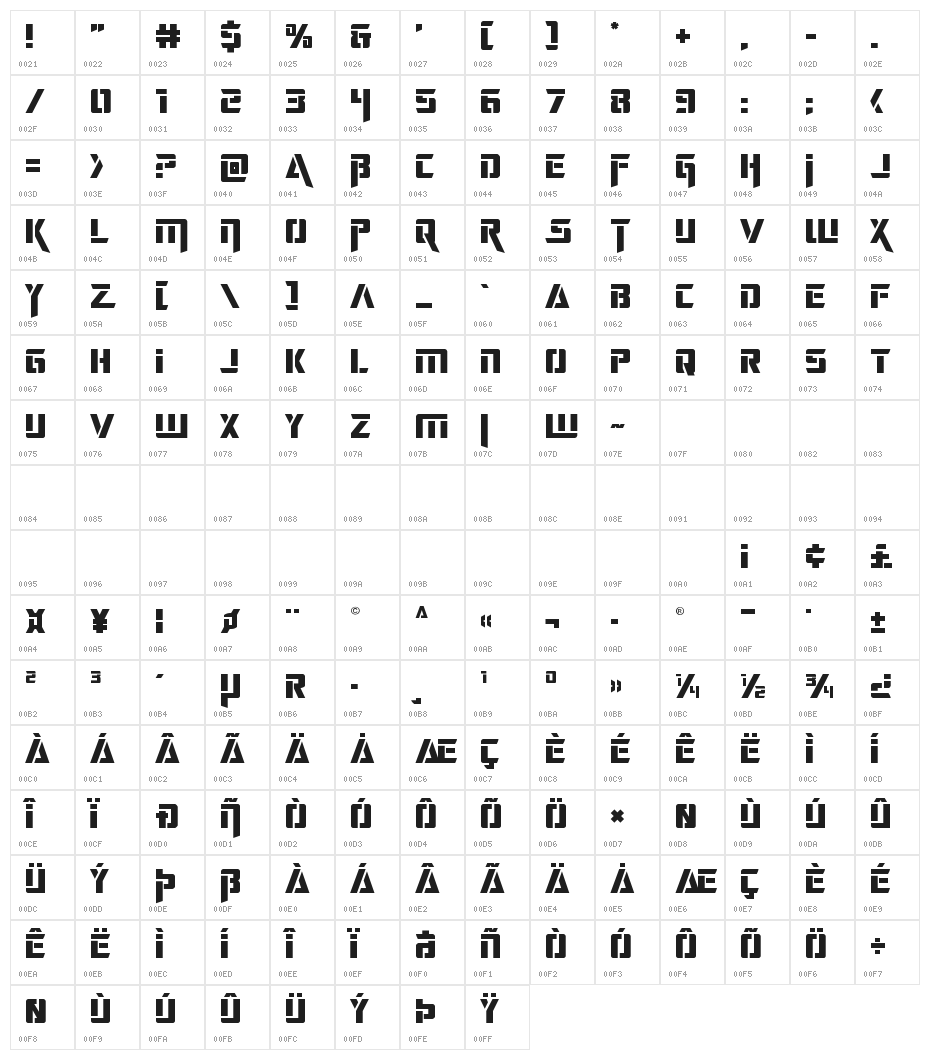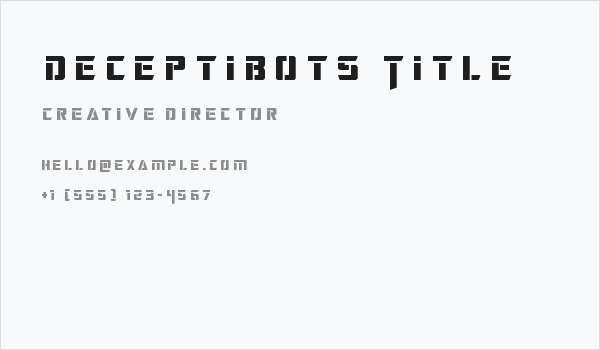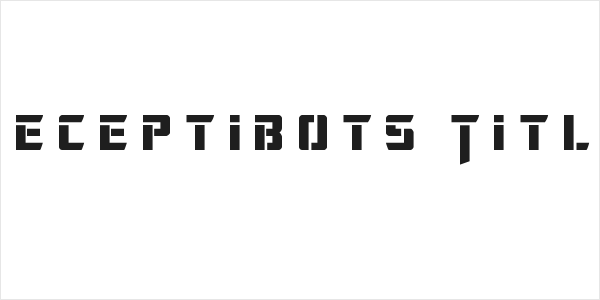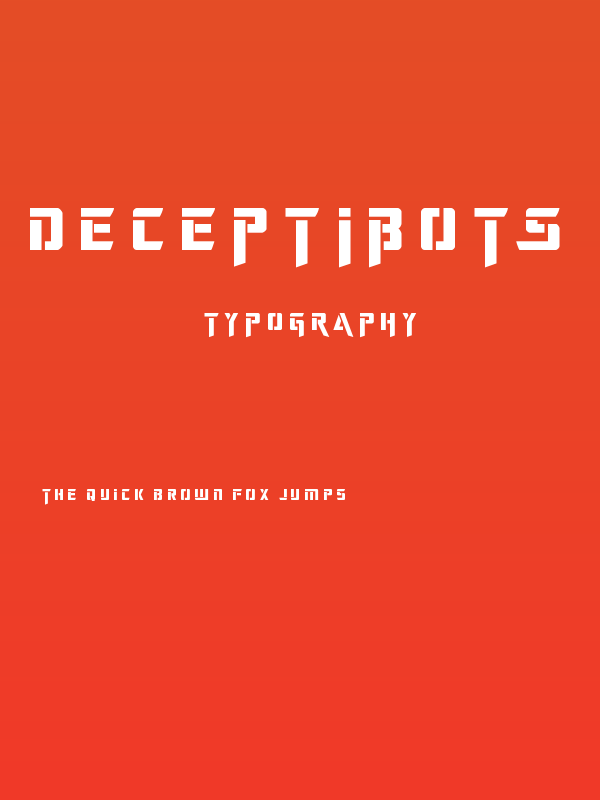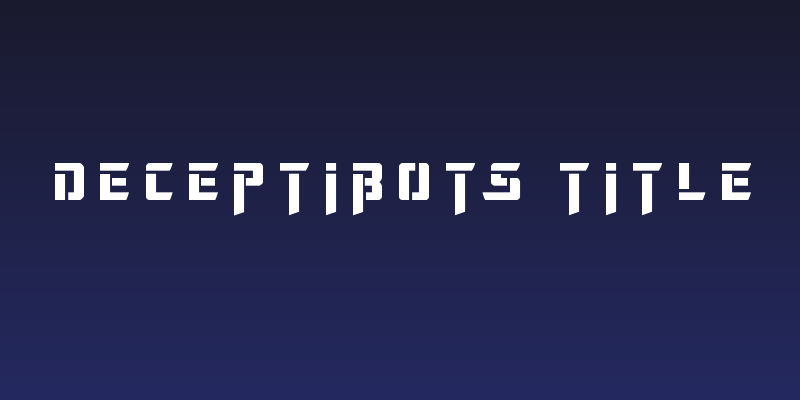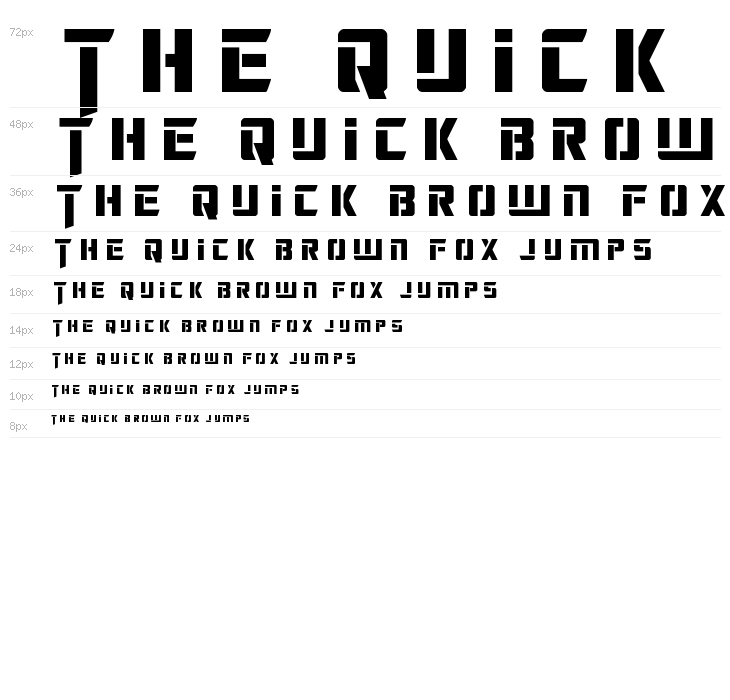
Deceptibots Title Font
Deceptibots Title Description
This font features a bold, futuristic design with sharp angles and geometric shapes. The uppercase and lowercase letters maintain a consistent style, emphasizing a strong, mechanical aesthetic. The numbers and special characters follow the same angular theme, making the font suitable for projects that require a modern, tech-inspired look. The characters are evenly spaced, contributing to a clean and organized appearance. The font's distinct style makes it ideal for use in digital and print media where a bold statement is needed.
| Proposed Projects | Ideal for sci-fi movie titles, video game interfaces, tech branding, and futuristic posters. |